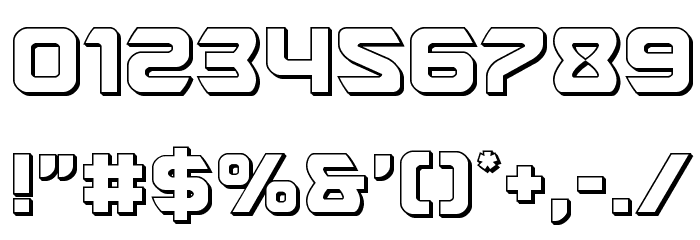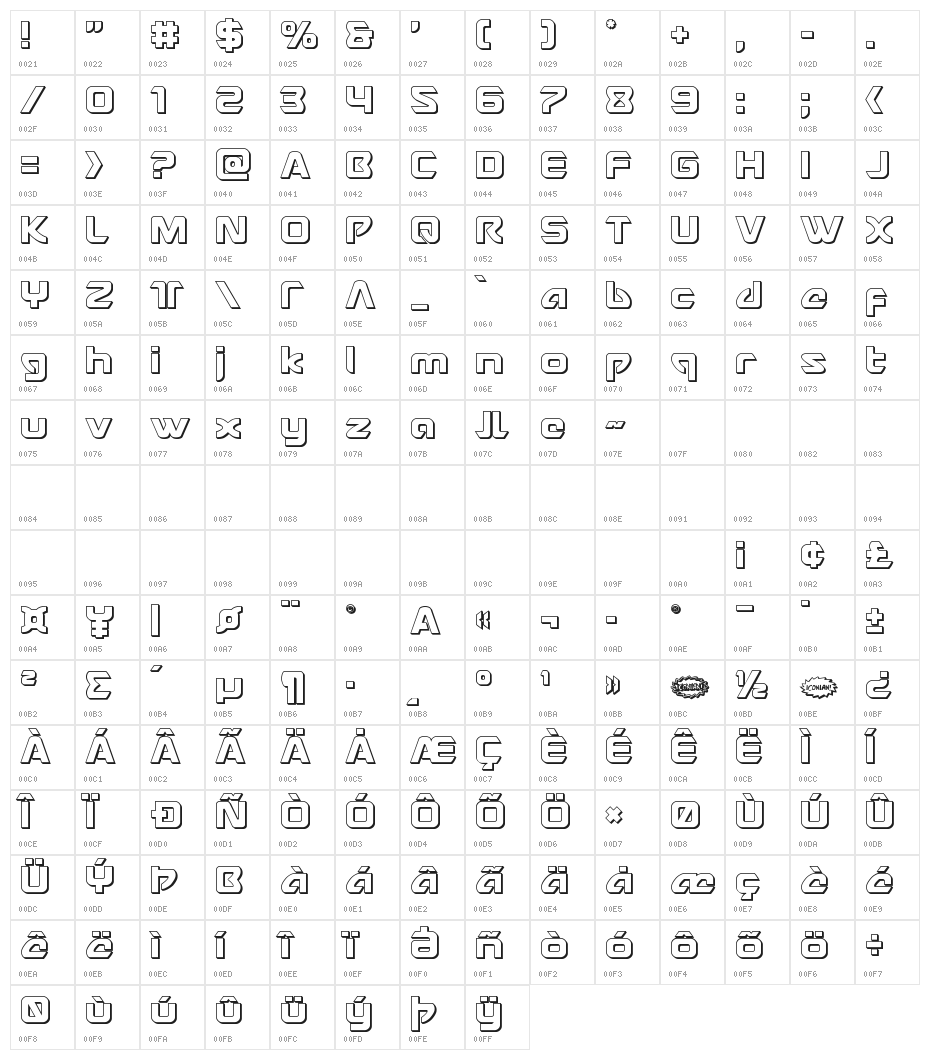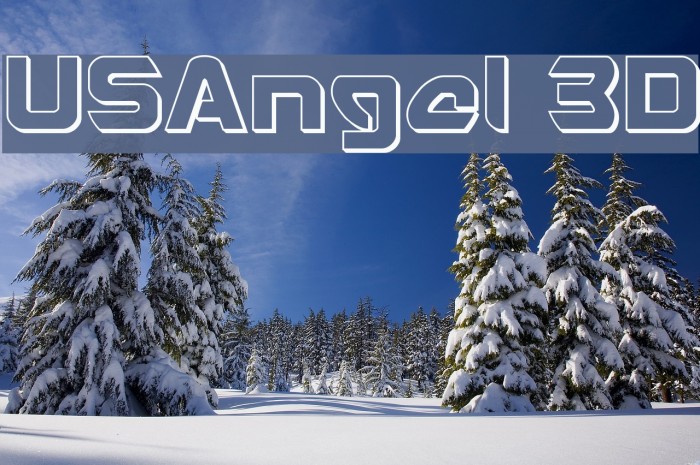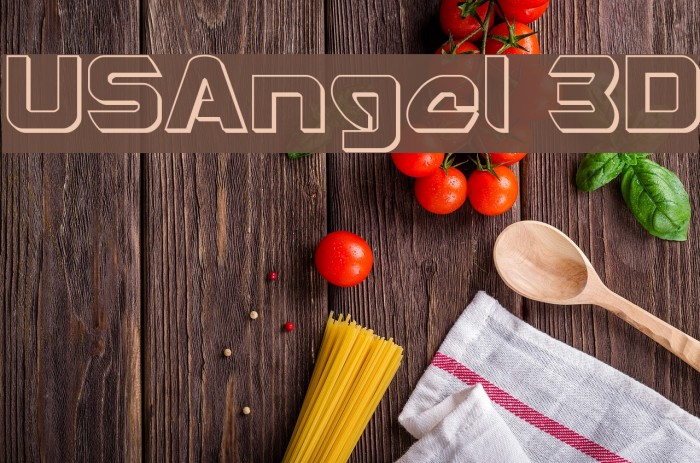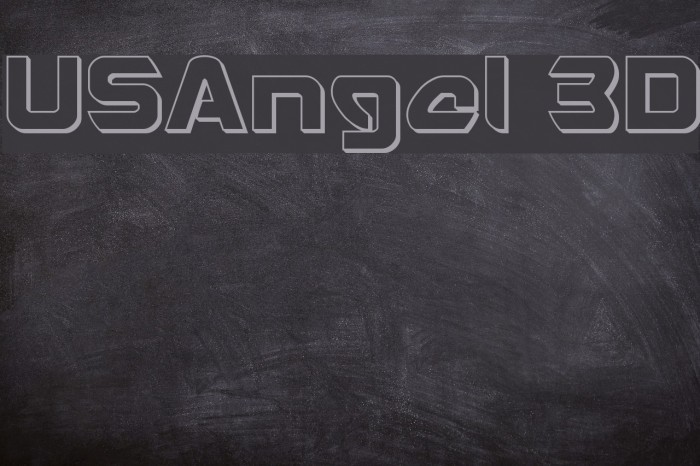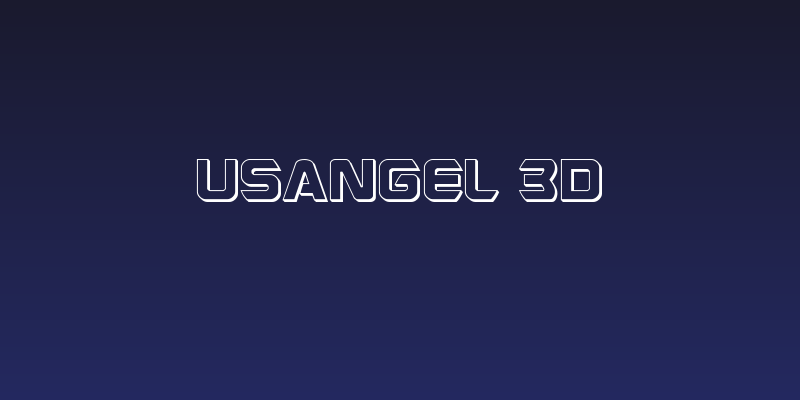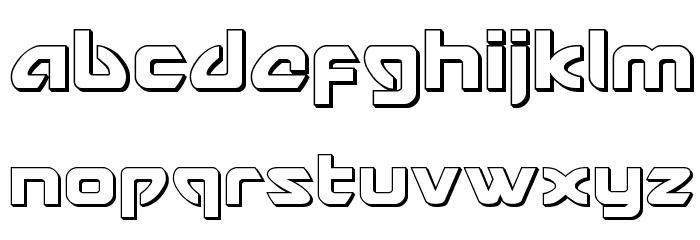
USAngel 3D Font
USAngel 3D Description
This font features a bold, three-dimensional outline style that gives each character a distinct, futuristic appearance. The uppercase and lowercase letters maintain a consistent geometric form, with sharp angles and clean lines that create a sense of depth and dimension. The numerals and special characters follow the same design principles, ensuring uniformity across the entire character set. The font's unique style makes it ideal for projects that require a modern and eye-catching aesthetic.